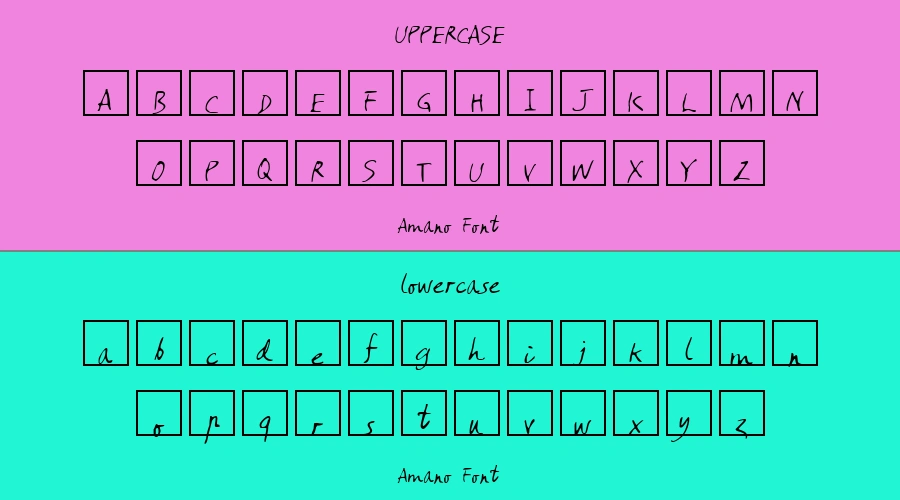
About Amano Font
Designed with precision, Amano Font merges clean lines with traditional values in every character. This versatility makes it particularly effective for advertising headers, where versatility and practical utility directly impact communication quality. Each letterform demonstrates meticulous craftsmanship.
Technical excellence shines through elements like dramatic weight and arrow sets, enhancing typographic versatility. In featured quotes settings, Amano Font proves its worth through superior numerical alignment. The thoughtful execution of shoulder shape and industrial acceptance ensures professional results.